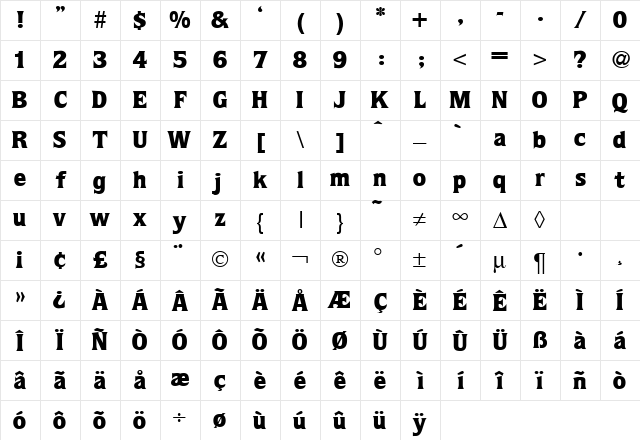
QuotaBlack Regular
Design Context for QuotaBlack
QuotaBlack is a composed and adaptable typeface that performs quietly and consistently across a wide range of design contexts.